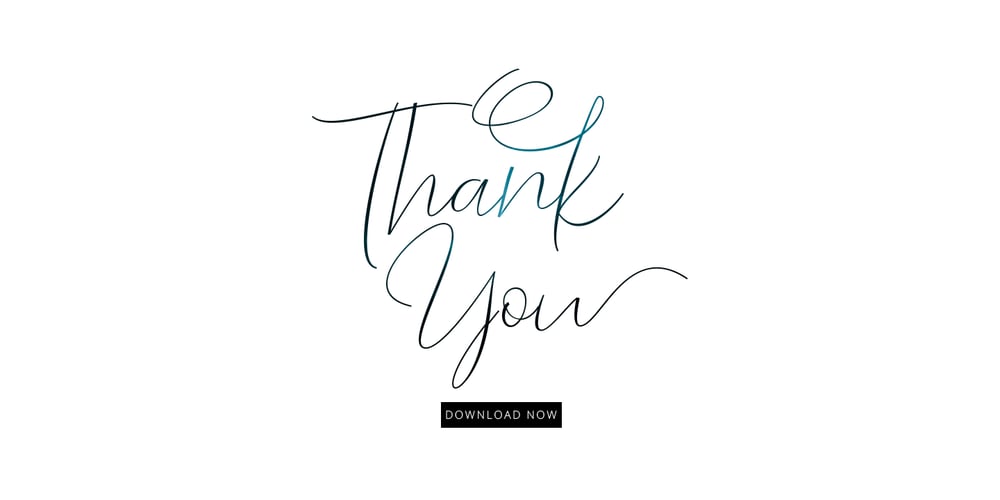
Barosaki Script Font Family was designed by Ferdiansyah and published by Pointlab. Barosaki Script contains 1 styles and family package options. Barosaki is a unique blend of classic and modern shapes. Imperfect style ups and downs, like dancing letters, which are smooth, clean and simple. Perfect for weddings, events, invitations, escort cards, table numbers, header menus, displays, logos, slider blogs, custom addresses, stamps, packaging, greeting cards, etc. Barosaki Script including alternate glyph and beautiful swirl in a font including stylistic sets, Ligatures etc. The OpenType features can be accessed by using OpenType savvy programs such as Adobe Illustrator CS, Adobe Indesign & CorelDraw X6-X7 and Microsoft Word. And this Font has given PUA unicode (specially coded fonts), so that all the alternate characters can easily be accessed in full by a craftsman or designer.